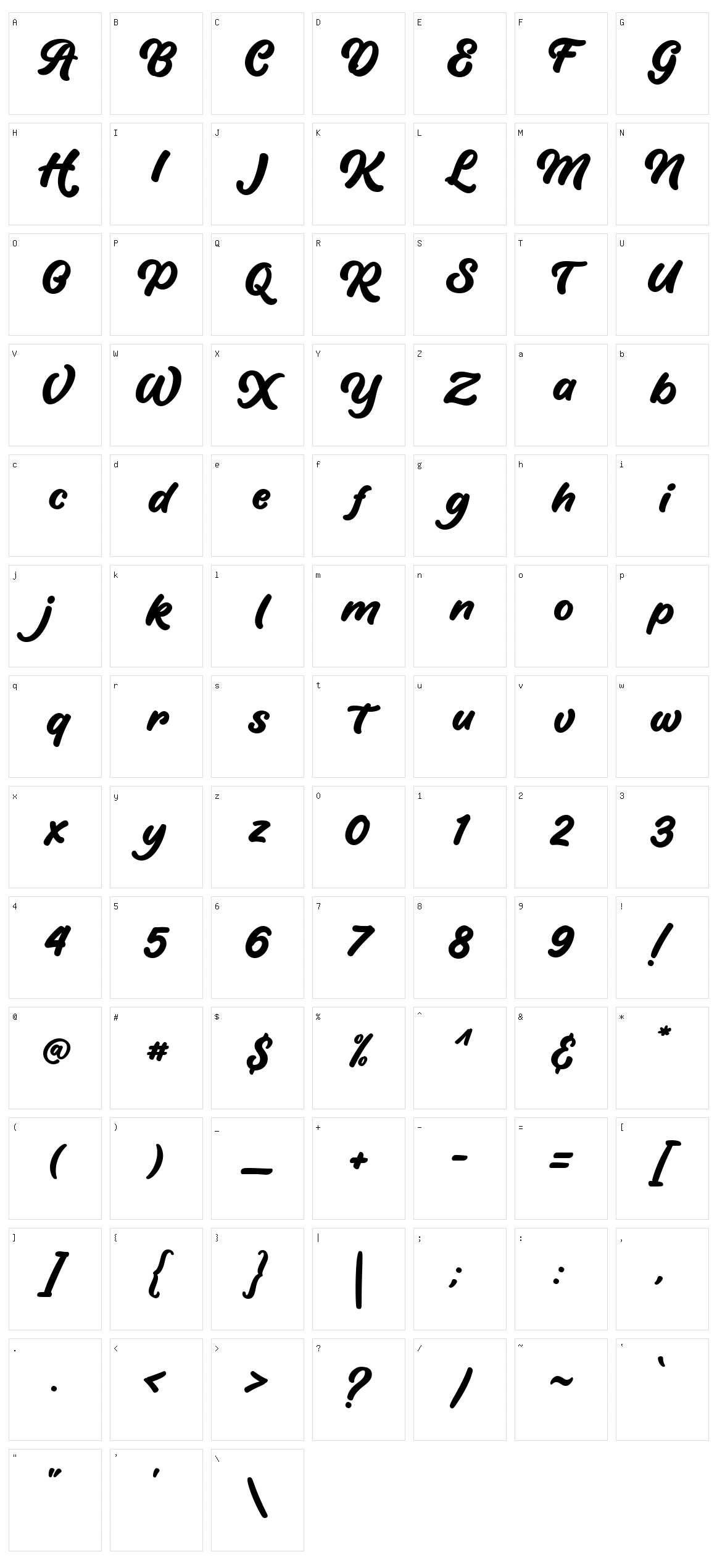
The free font Hirolley Script is carefully designed by Typefactoryco, showcasing a thoughtful balance of creativity and usability and falls under the Old-School font style. When you download the ZIP file, it contains only 155.79 KB of font files, making it lightweight and quick to download. Please review the license details below to understand permitted usage and distribution rights. If license information is not available, we recommend using this font for personal projects only or contacting the author directly for commercial usage permissions.